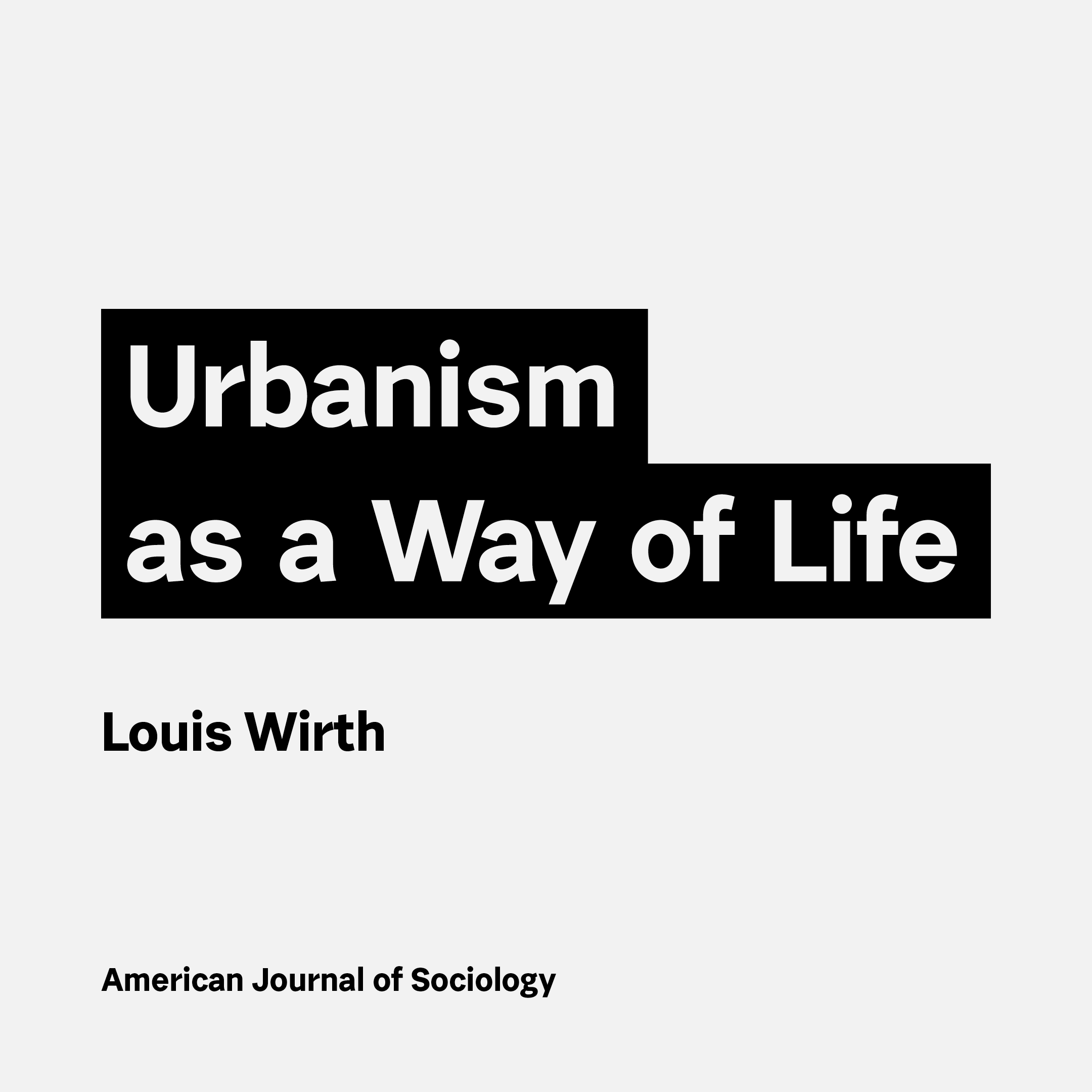
Urban Grotesk
At the beginning of the twentieth century, in addition to new bold serif and slab-serif designs, the first elegant sans-serif typefaces — known as grotesques — began to appear in type foundry specimens. This modern trend influenced the design and use of display type throughout the following century up to the present day. Typefaces such as Französische Grotesk, Reform Grotesk, Breite Halbfette Grotesk, Normal Grotesk, and Square Gothic can without exaggeration be regarded as canons of aesthetic standards for most modern typefaces.
Urban Grotesk seeks to build on the best qualities of the original grotesques. It features oval curves, subtle thinning at the joins of connecting strokes, and a vertical stress axis, with terminals cut strictly perpendicular to the direction of the stroke. Particularly characteristic are the way curves connect to stems, the round dot, slightly lower and more economical capitals, and generously proportioned numerals. The width proportions of the characters are nearly unified, creating a consistent grey typographic colour across the page. A more open spacing supports good readability in texts.
The updated version of Urban Grotesk expands the glyph set to include Cyrillic and Greek characters, fractions, currency symbols, revised interpolations, and new alternate characters.